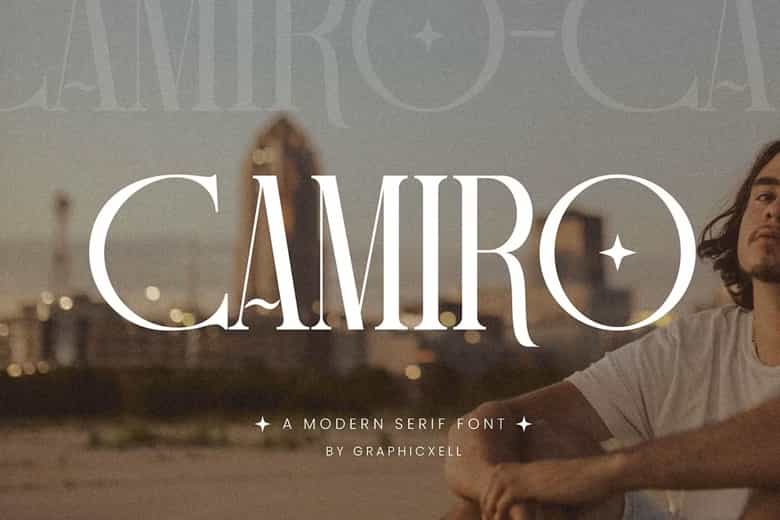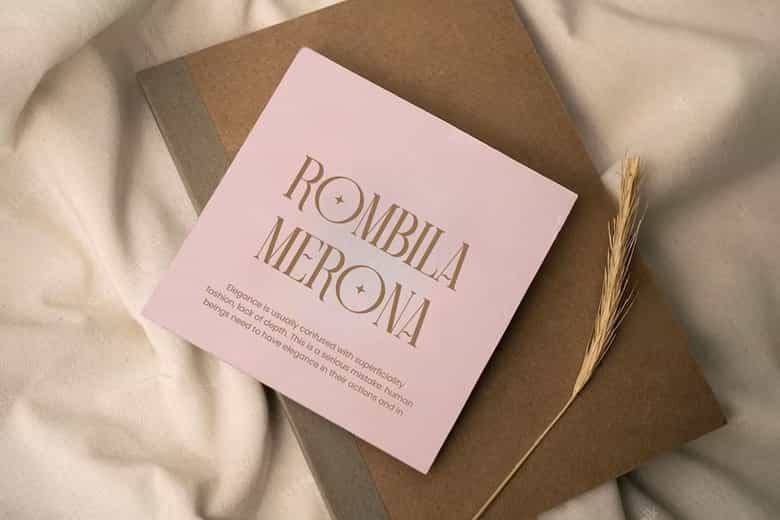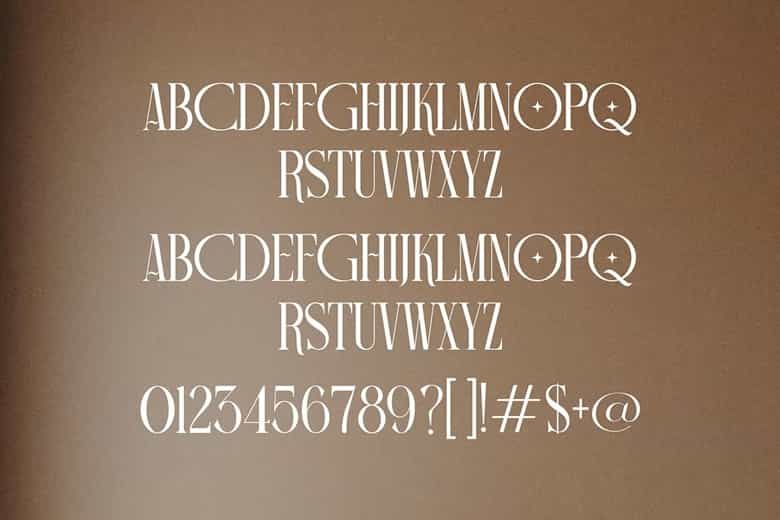
Discover Camiro Font, part of the Serif collection—a versatile and unique font perfect for adding a personal touch to your projects. Download it for free and enjoy crafting designs with style, from invitations to social media posts. This font is available exclusively for personal use, giving you the freedom to create without limits. Unlock your creativity with Camiro Font today!
Camiro is a modern serif font. Camiro inspired by the famous minimalist logo perfect for the purposes of designing templates, brochures, videos, advertising branding, logos, invitation, layout design, elegant crafting, beauty design and other